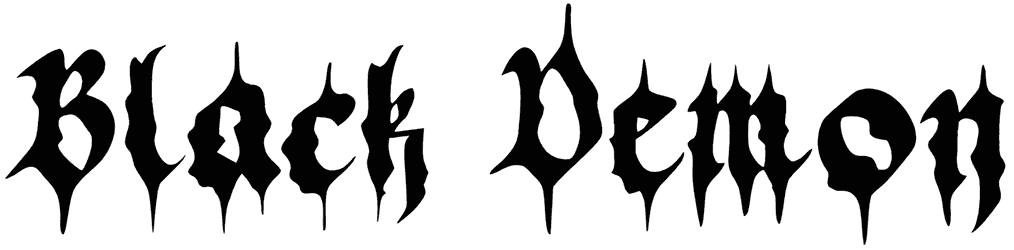
Black Demon Font
Well, engage in today’s post with an evil face in a hair-raising, and treacherous design of Black Demon font, which is dedicated to walking through your headers of Halloween flyers, terrifying films, or heavy metal album covers in a wink.
Thanks to our inventory, this blackletter font with the gothic style and sharp edge runs across as an ideal affair to bring fear to the following portraits while containing all characters.